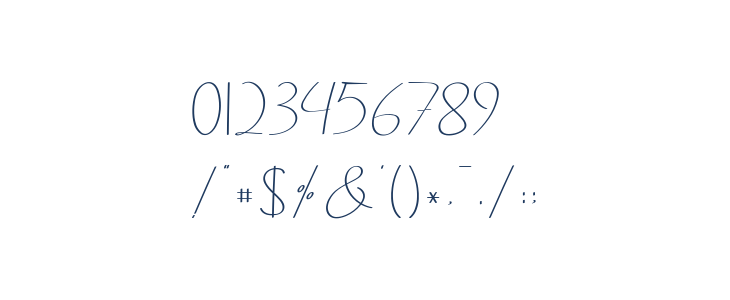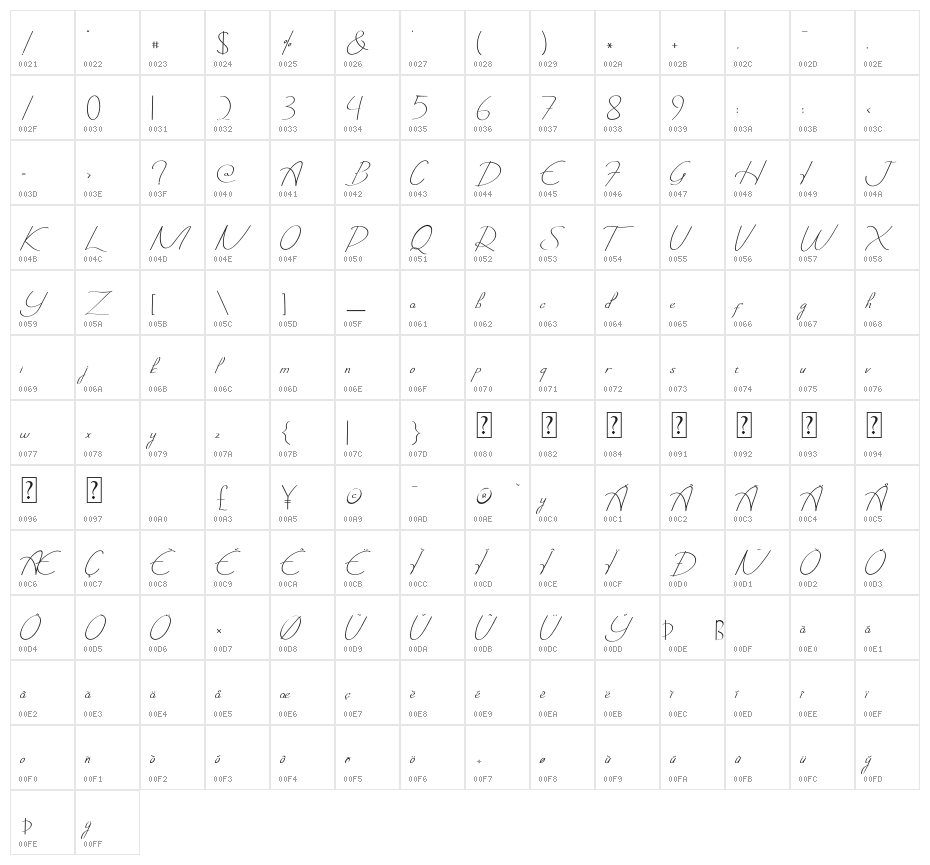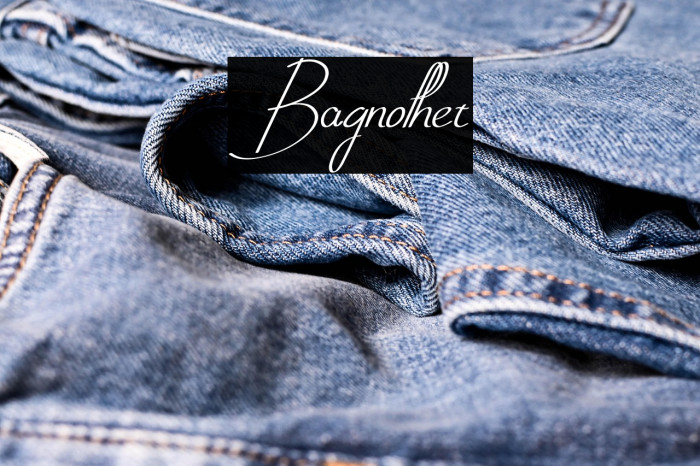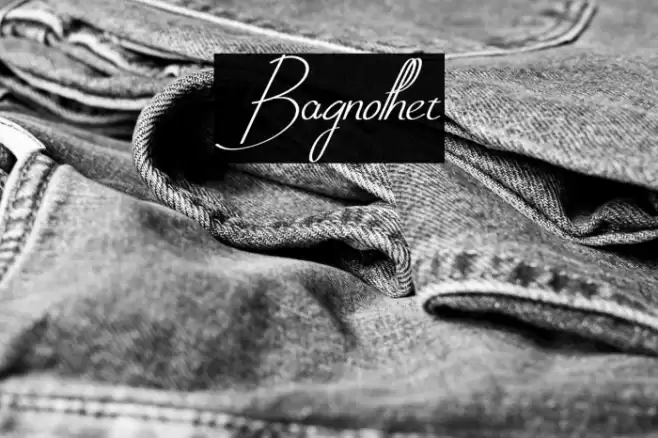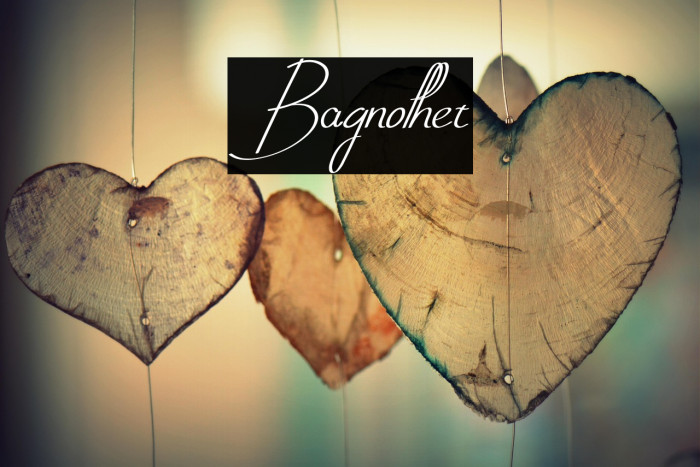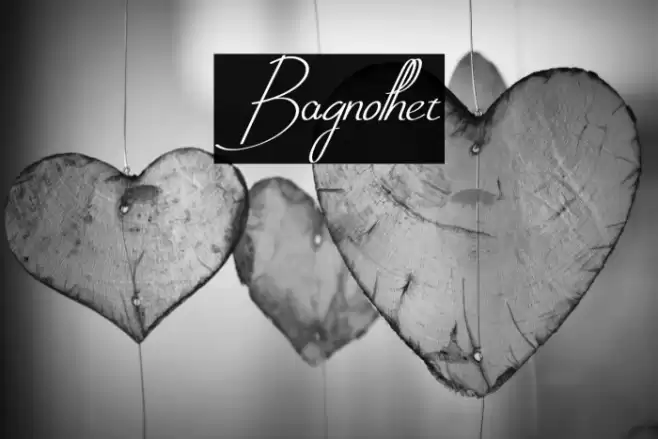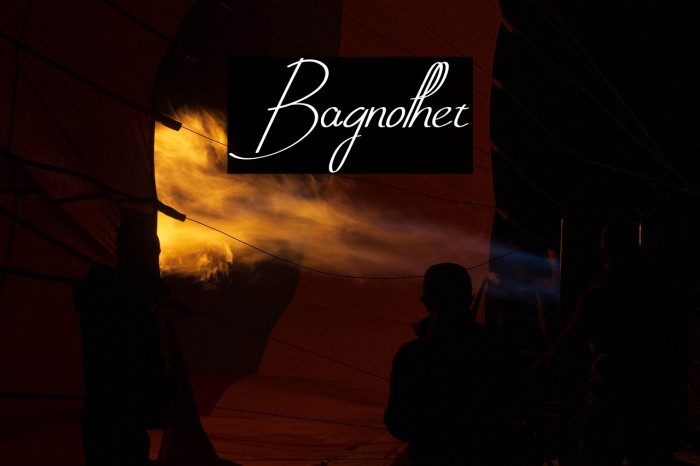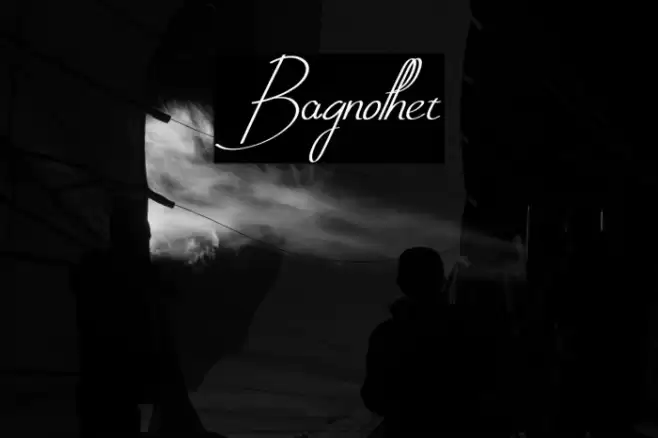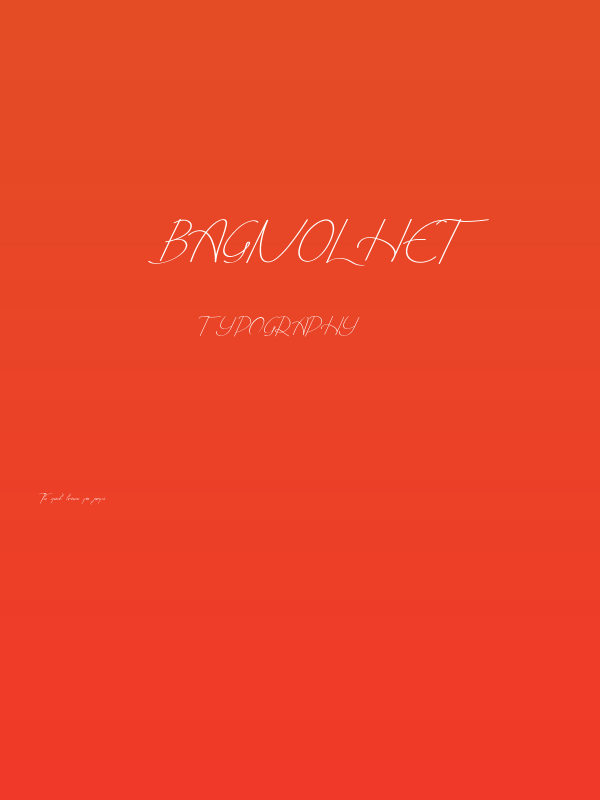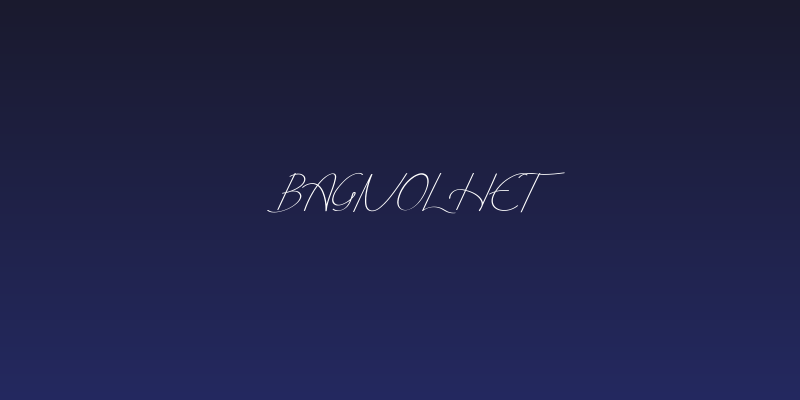
Bagnolhet Font
Bagnolhet Description
This elegant script font features a flowing, cursive style with smooth, continuous strokes that create a sense of fluidity and grace. The uppercase letters are tall and slender, with gentle curves and loops that add a touch of sophistication. The lowercase letters maintain a consistent style, with delicate connections between characters that enhance readability. Numbers and special characters are crafted with the same attention to detail, ensuring a cohesive look across all elements. The font's overall appearance is refined and stylish, making it suitable for projects that require a touch of elegance and class.
| Overall Style | Elegant, Sophisticated |
| Proposed Projects | Ideal for wedding invitations, elegant branding, luxury product packaging, and sophisticated event posters. |